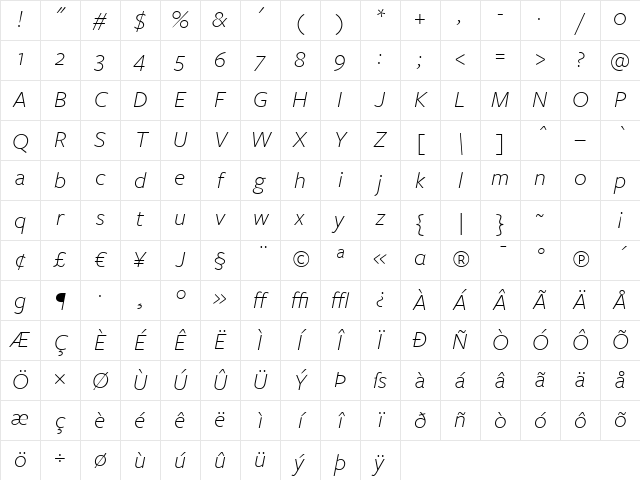
FreightSans LightItalic
Style: LightItalic
Foundry: Joshua Darden & Phil's Fonts, Inc
Designer: Joshua Darden
FreightSans Family
Complete FreightSans LightItalic glyph index. Displaying only characters natively supported by FreightSans LightItalic font.
Design Context for FreightSans
FreightSans is a composed and adaptable typeface that performs quietly and consistently across a wide range of design contexts. The slanted form adds forward momentum and visual energy. Its slender proportions lend an understated elegance to any composition.
Who designed the FreightSans LightItalic font?